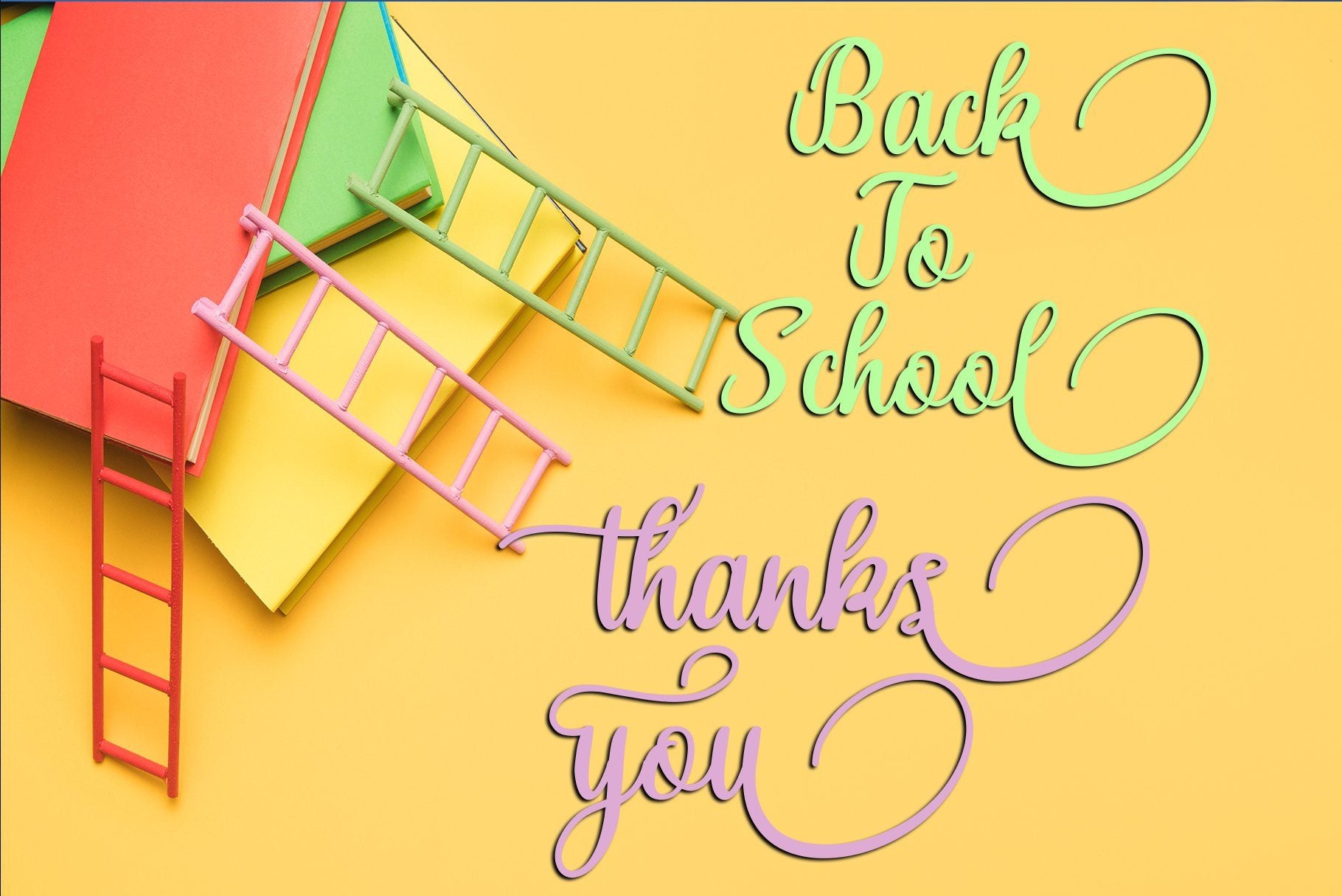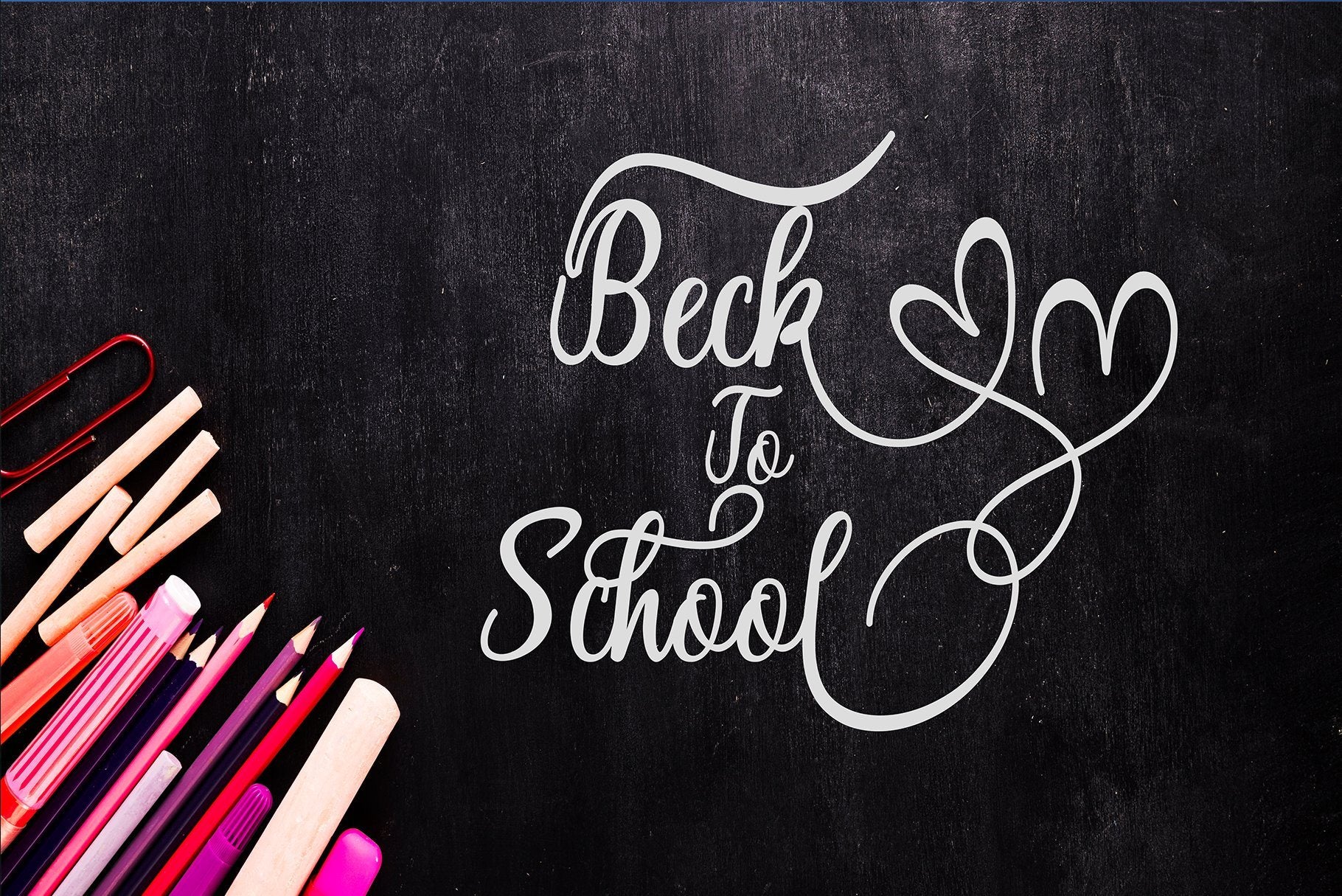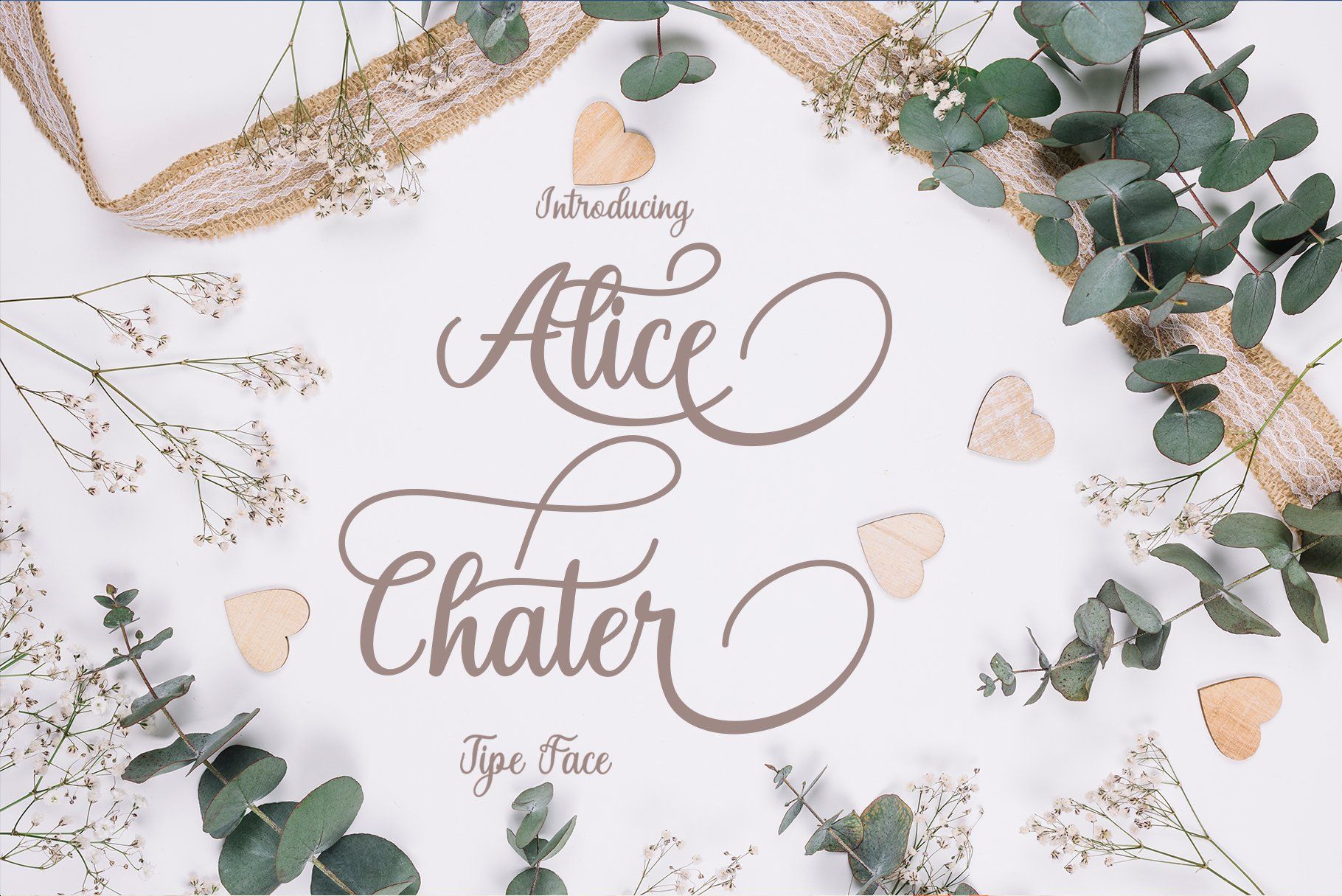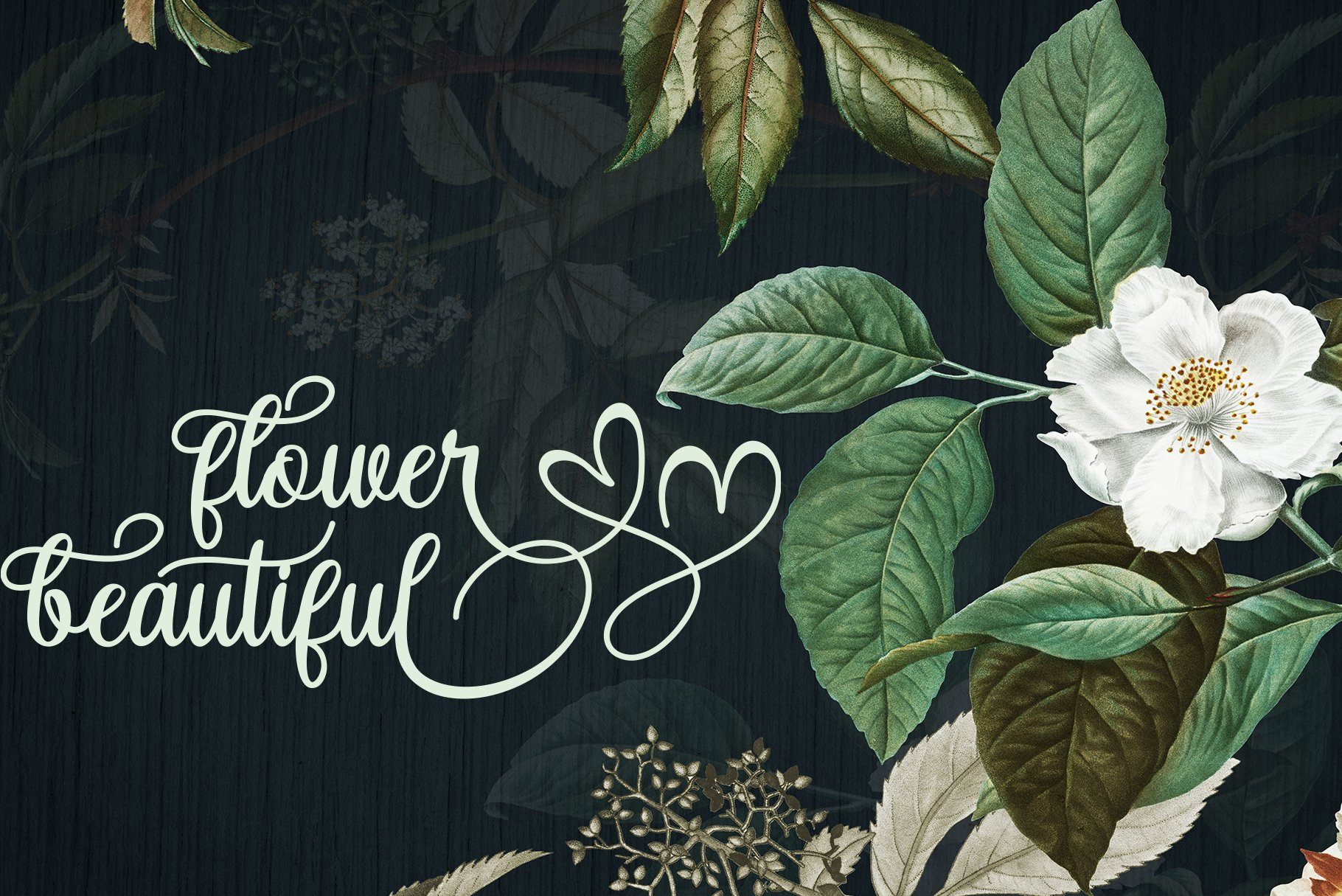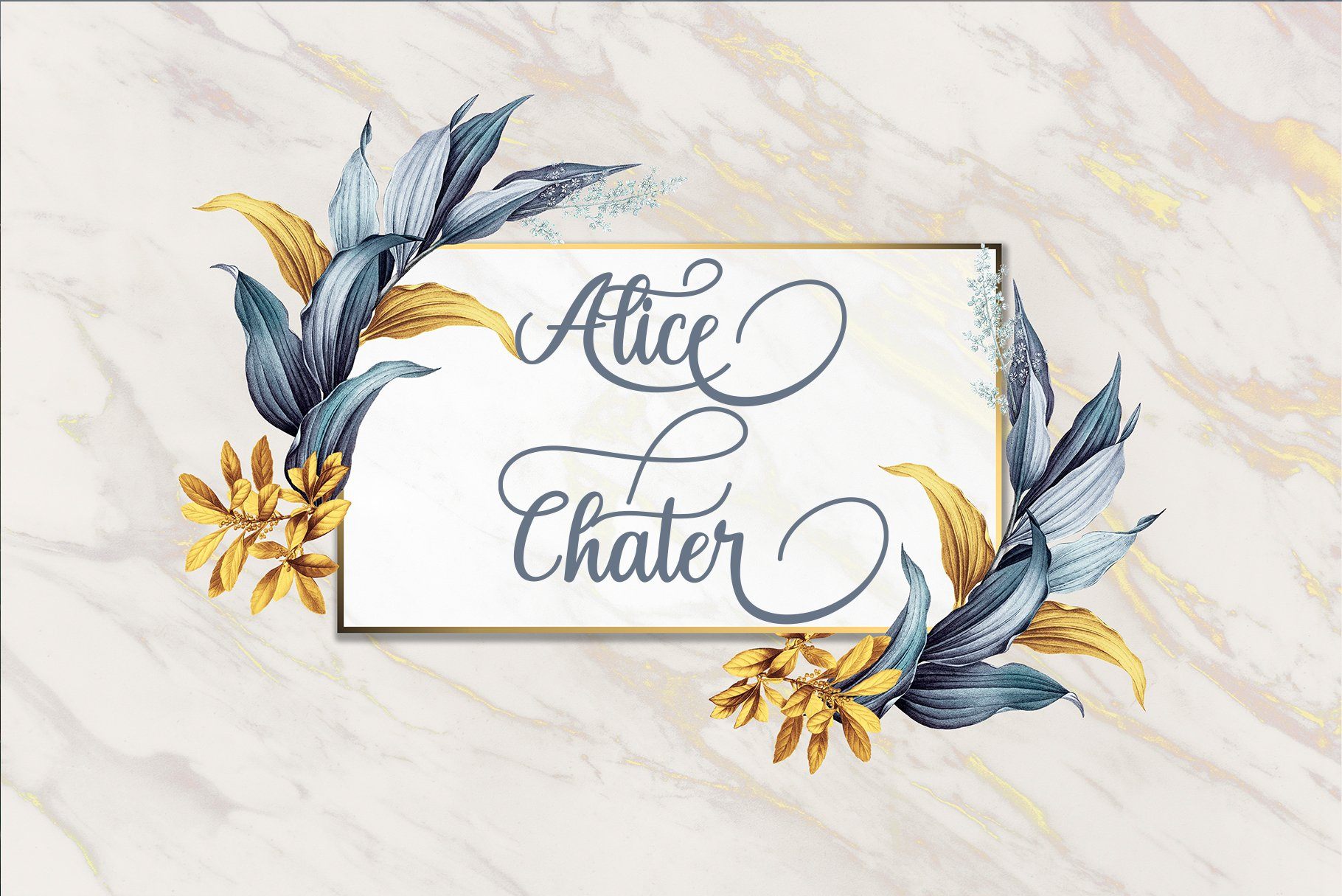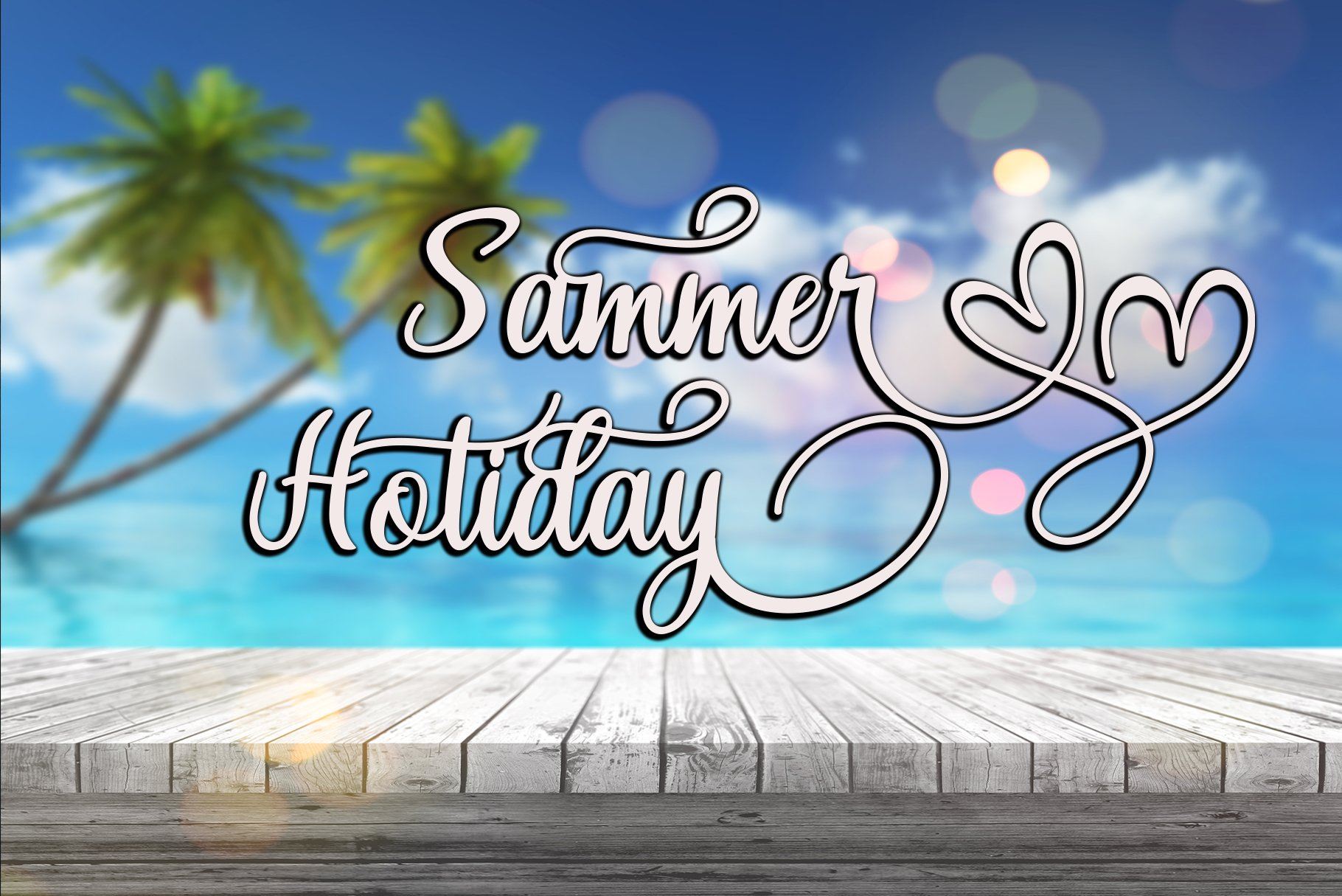
Alice Chater
About Alice Chater
Alice Chater Scrip Modern Calligraphy This font is designed with handwriting, and has a form of modern and unique calligraphy, its writing style is very natural. Alice Chater Script has a very unique calligraphy style, very suitable for use in modern design work. Can be used for business cards and weddings, books, birthdays, design clothes, ETC Features of this font are: Standard Ligatures PUA Unicode (Personal Use Areas) Font files include: Alice Chater Scrip OTF Alice Chater Scrip TTF Can be used for various purposes. Like title, logo, wedding invitation, t-shirt, letterhead, label, news, poster, badge etc. To enable OpenType Stylistic alternately, you need a program that supports OpenType features such as Adobe Illustrator Font CS, Adobe Indesign & CorelDraw X6-X7.a that make hands with characters up and down like a dancer. Tabatha Script has a very unique calligraphy style, perfect for use in modern design work. Alice Chater Scrip Modern Calligraphy This font is designed with handwriting, and has a form of modern and unique calligraphy, its writing style is very natural. Alice Chater Script has a very unique calligraphy style, very suitable for use in modern design work. Can be used for business cards and weddings, books, birthdays, design clothes, ETC Features of this font are: Standard Ligatures PUA Unicode (Personal Use Areas) Font files include: Alice Chater Scrip OTF Alice Chater Scrip TTF Can be used for various purposes. Like title, logo, wedding invitation, t-shirt, letterhead, label, news, poster, badge etc. To enable OpenType Stylistic alternately, you need a program that supports OpenType features such as Adobe Illustrator Font CS, Adobe Indesign & CorelDraw X6-X7.a that make hands with characters up and down like a dancer. Tabatha Script has a very unique calligraphy style, perfect for use in modern design work. Alice Chater Scrip Modern Calligraphy This font is designed with handwriting, and has a form of modern and unique calligraphy, its writing style is very natural. Alice Chater Script has a very unique calligraphy style, very suitable for use in modern design work. Can be used for business cards and weddings, books, birthdays, design clothes, ETC Features of this font are: Standard Ligatures PUA Unicode (Personal Use Areas) Font files include: Alice Chater Scrip OTF Alice Chater Scrip TTF Can be used for various purposes. Like title, logo, wedding invitation, t-shirt, letterhead, label, news, poster, badge etc. To enable OpenType Stylistic alternately, you need a program that supports OpenType features such as Adobe Illustrator Font CS, Adobe Indesign & CorelDraw X6-X7.a that make hands with characters up and down like a dancer. Tabatha Script has a very unique calligraphy style, perfect for use in modern design work.